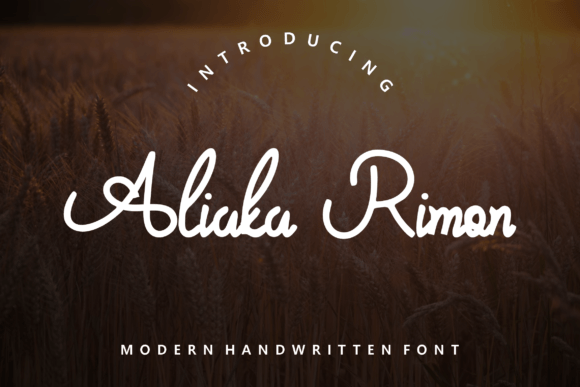
Discover the Magic of Aliaka Rimon Font
Have you ever been working on a project, and suddenly, the perfect font pops into your mind? You can almost see the entire design come together in your imagination. For many designers, this is the moment that sets their creativity ablaze. It’s a feeling that’s hard to describe, but it’s a mix of excitement, inspiration, and a dash of luck.
Aliaka Rimon Font is that magic moment in a bottle. This exquisite handwritten font is designed to elevate your projects to new heights. With its classy calligraphic influences and fresh, contemporary feel, it’s the perfect addition to any design. Whether you’re a seasoned pro or just starting out, Aliaka Rimon Font is a valuable tool that will help you bring your ideas to life.
Aliaka Rimon Font Key Features
- Unique Characteristics: Aliaka Rimon Font features a unique blend of modern and traditional elements, with intricate details and ornaments.
Aliaka Rimon Font Review
Overall, I think Aliaka Rimon is a solid choice for those looking for a modern and elegant font. It works well in ✨ various digital platforms, including web and mobile applications. The font’s versatility and readability make it an excellent option for both body text and headings.
- ✨ Beautiful, modern design: The font’s clean lines and subtle curves create a sophisticated look that’s perfect for contemporary designs.
- ✨ Wide language support: Aliaka Rimon includes support for multiple languages, making it a great choice for global projects.
- ✨ Excellent readability: The font’s design ensures that text remains clear and easy to read, even at smaller font sizes.
However, I do have a few concerns that might affect your decision to use Aliaka Rimon:
- ⚠️ Limited customizability: While the font is well-designed, it’s not highly customizable, which might limit your creative freedom.
- ⚠️ Not ideal for traditional or formal designs: Aliaka Rimon’s modern design might not be the best fit for more traditional or formal projects.
Overall, I think Aliaka Rimon is a great choice for those who value modernity and elegance in their designs. Just be aware of its limitations and consider your project’s specific needs before making a decision.
Getting the Most Out of Aliaka Rimon Font
Aliaka Rimon Font is a modern, elegant font that can be used for a variety of purposes. To get the most out of it, use it for headings and titles to add a touch of sophistication to your designs. You can also use it for body text to create a cohesive look.
Aliaka Rimon Font is commonly used for:
- Restaurant menus and signage
- Personal branding and marketing materials